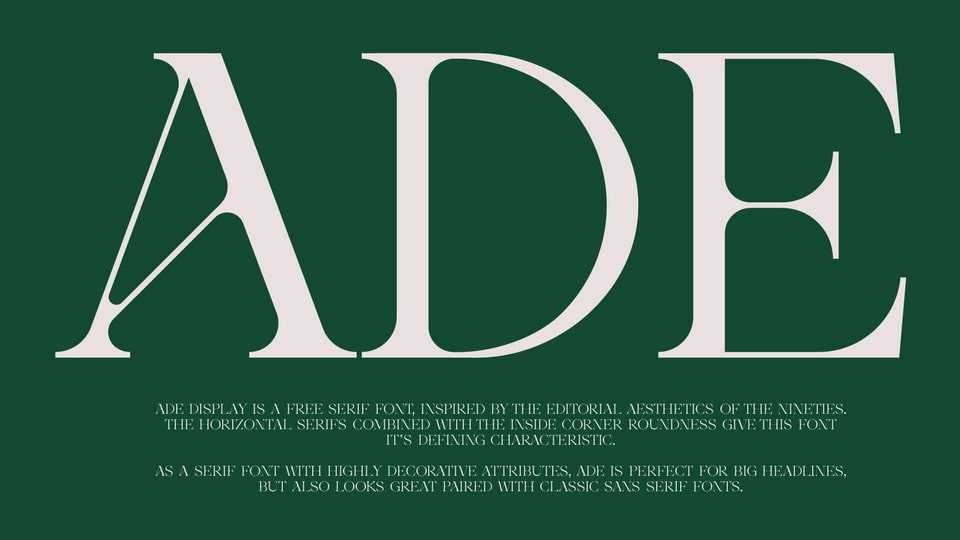
Download Ade Display font, a serif typeface inspired by the aesthetics of the nineties. The horizontal serifs combined with the inside corner roundness give Ade Display font it’s defining characteristic.
Designer: Thunder Studio